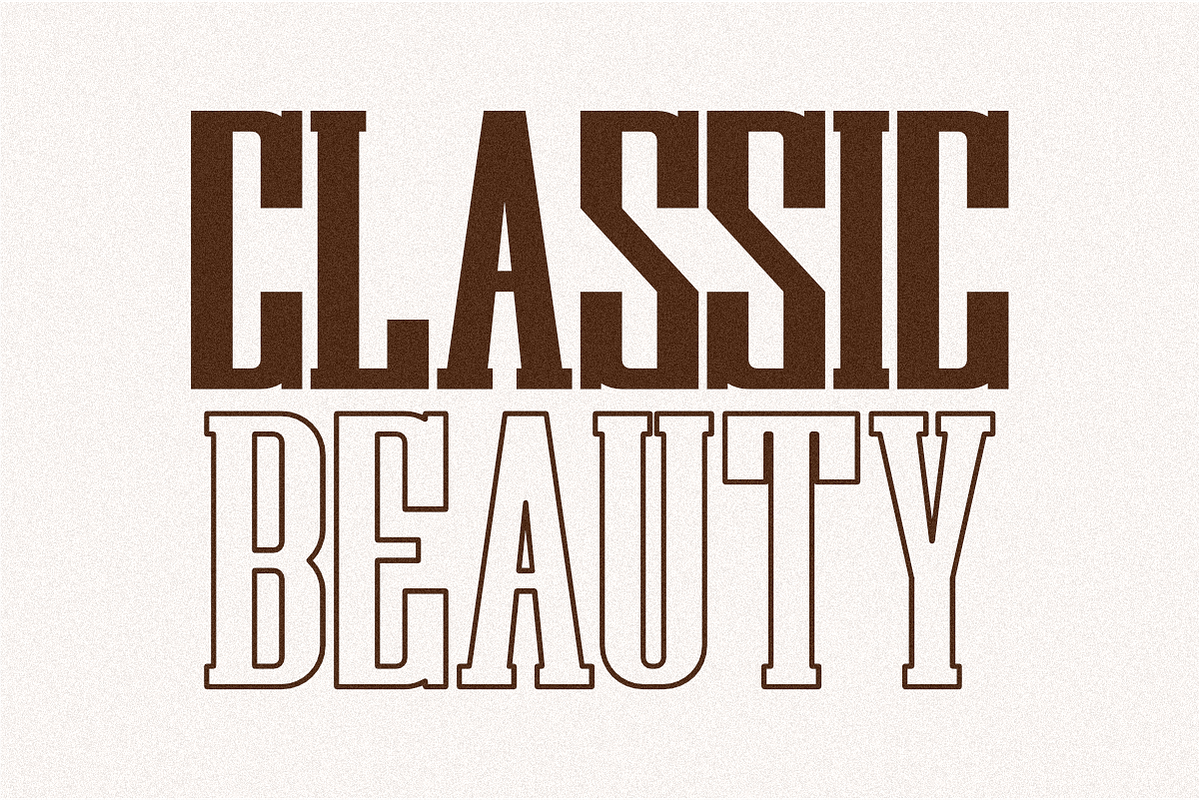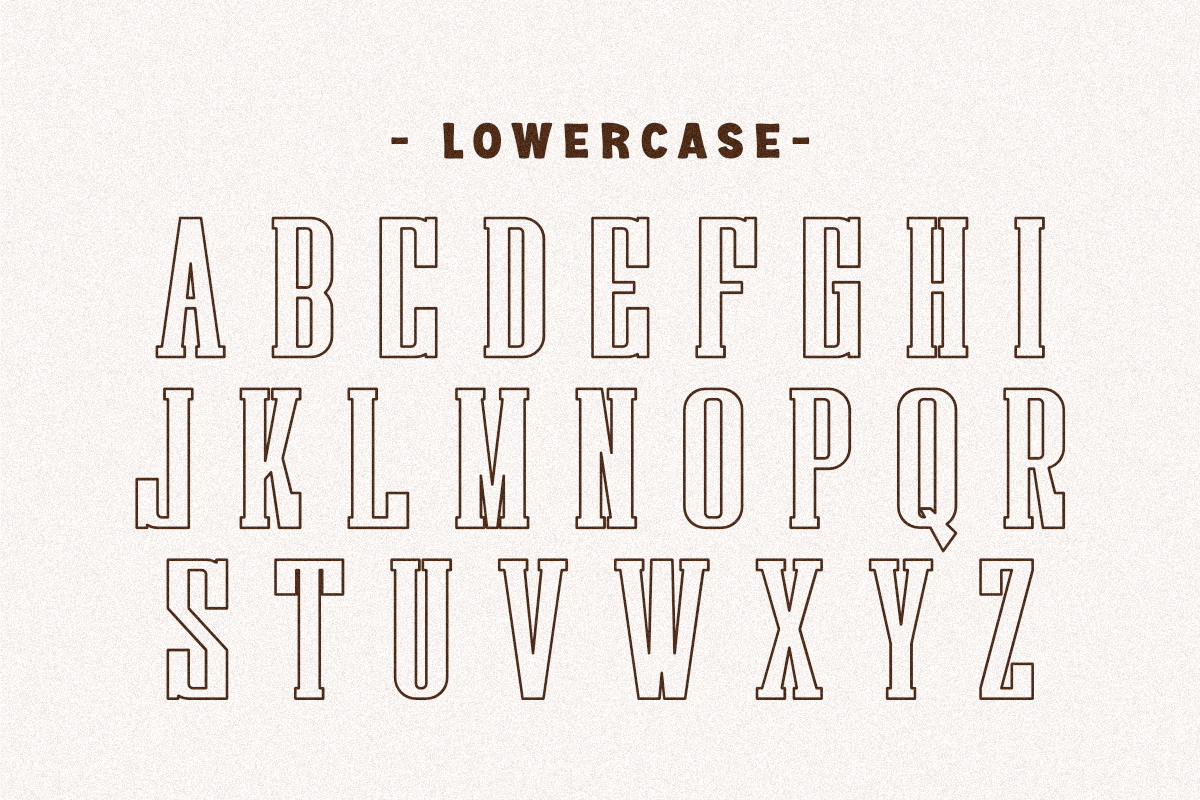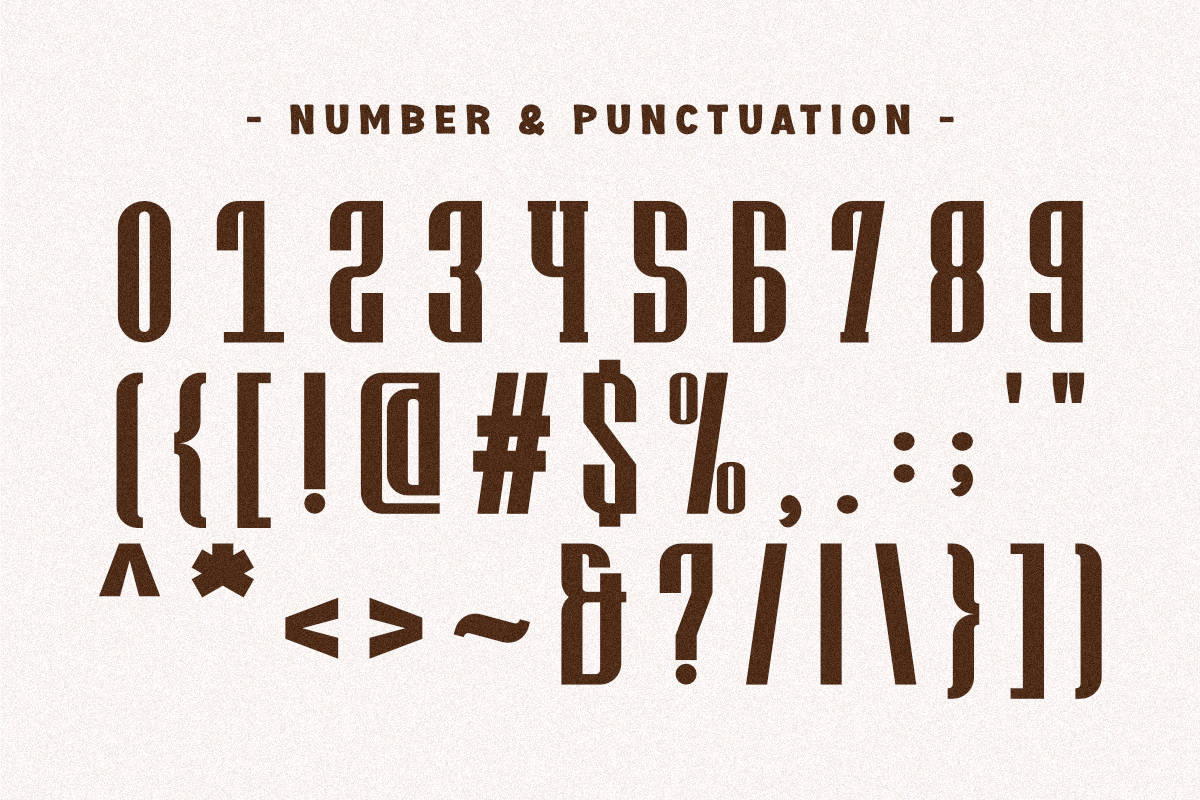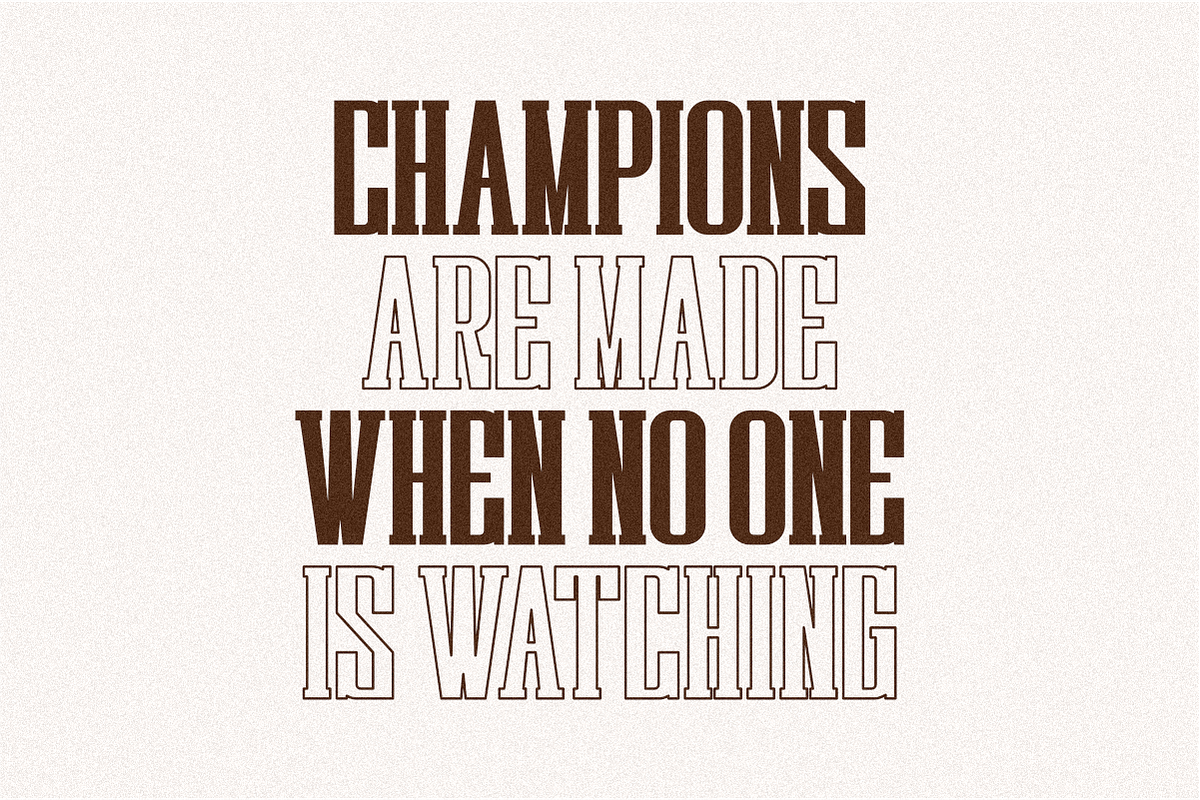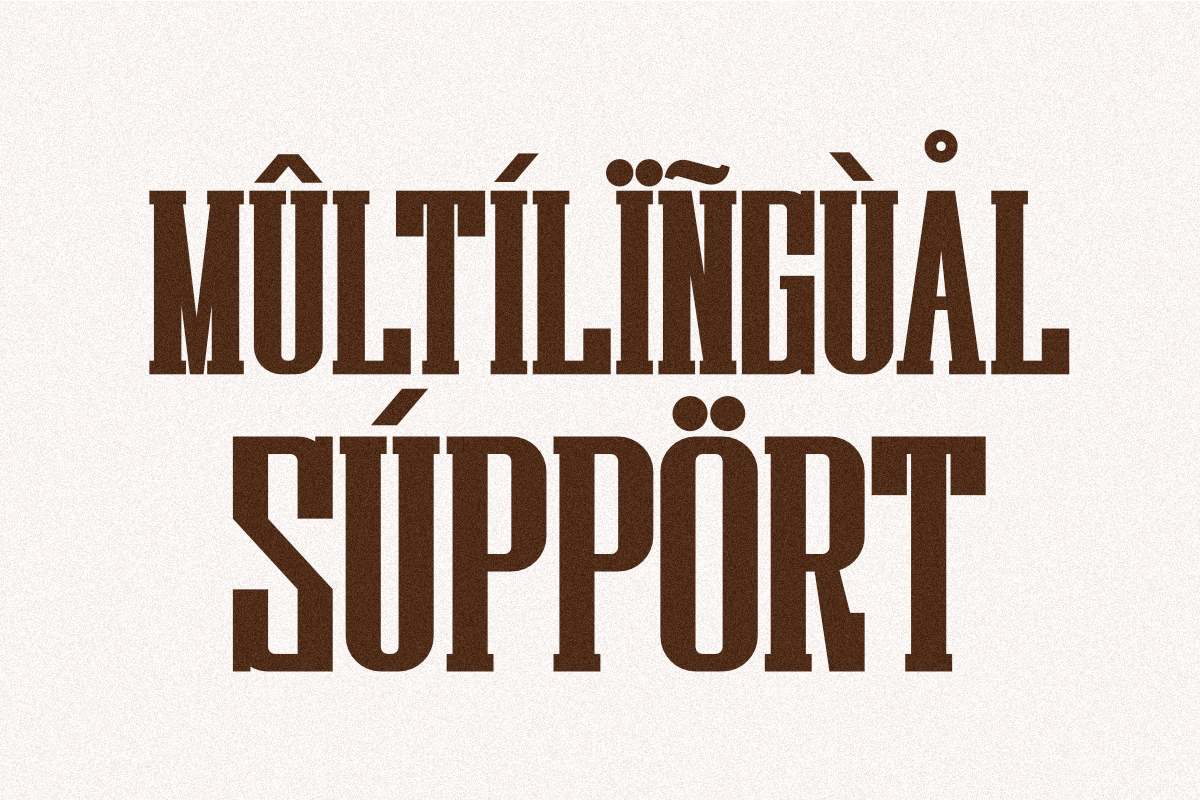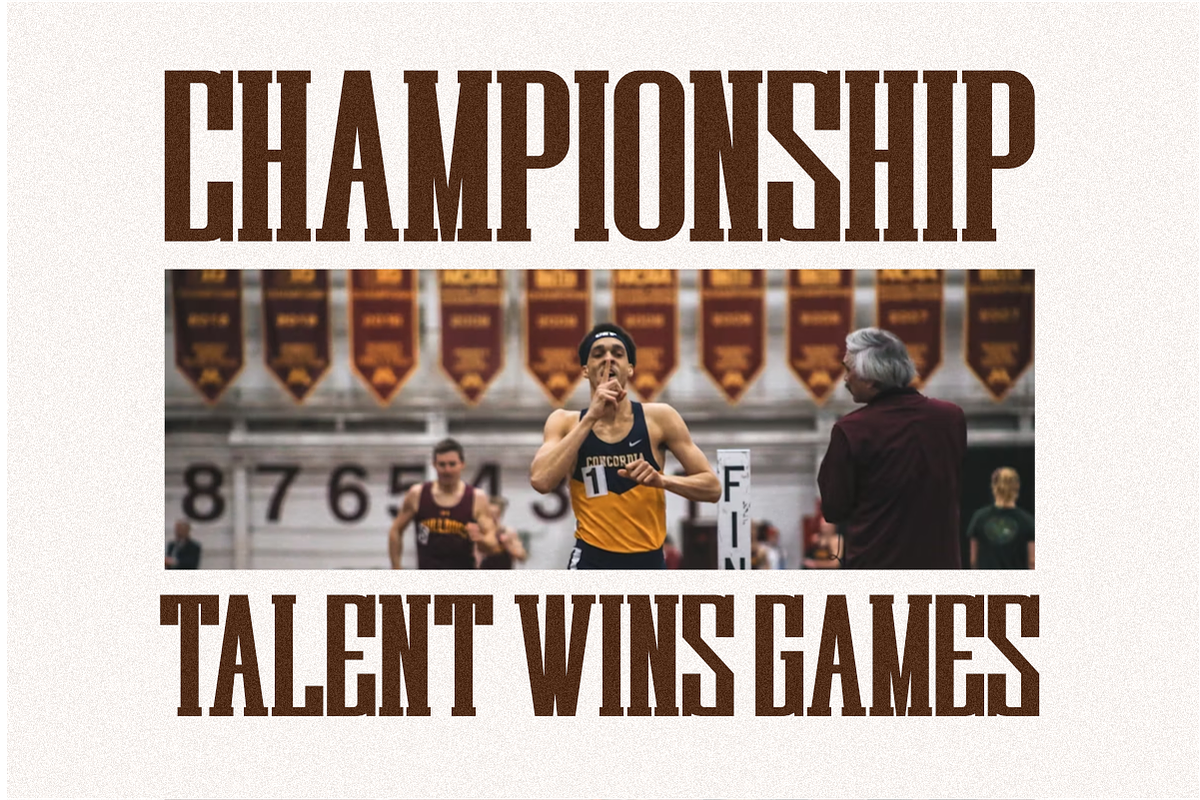
Capital Varsity - Condensed Slab
Capital Varsity is a bold and condensed slab serif font that combines classic varsity style with a modern edge. Its tall letterforms and strong serifs make it perfect for creating powerful headlines, logos, posters, sports designs, and branding projects. This typeface brings a confident and vintage athletic vibe, ideal for apparel prints, college-themed graphics, and bold typographic compositions.